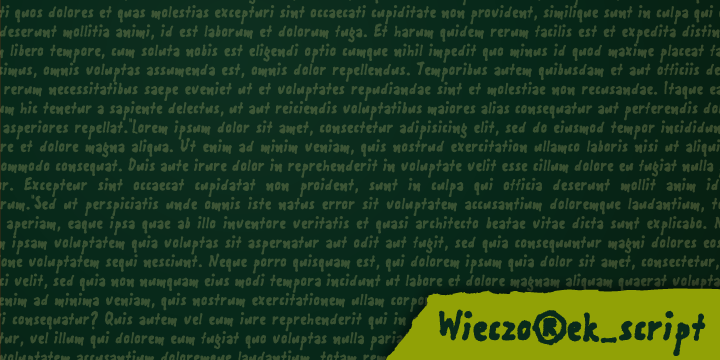
Wieczorek Script is a font based on handwriting of my professor -Stanislaw Wieczorek. I have been looking for a good handwritten script for a long time but a lot of them looked just similar to comic sans font. And that’s not what a handwritten scripts should look like. Wieczorek_script is more natural and looks great in a longer text.